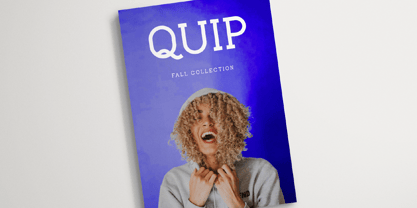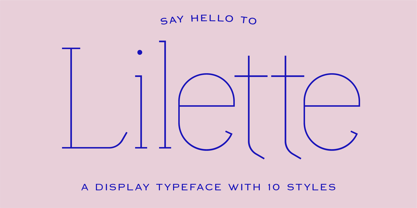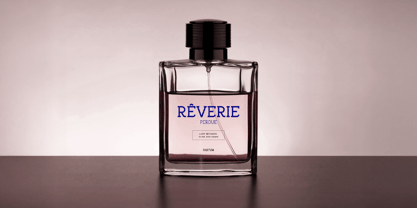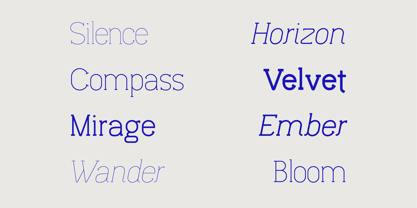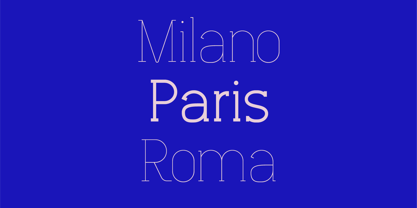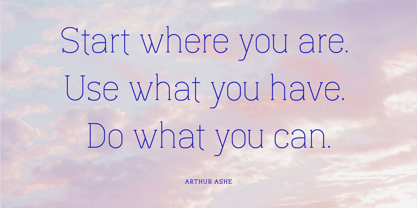
Lilette
by Elyas Beria
The Lilette Font Family was designed by Elyas Beria and published by Elyas Beria. Lilette contains 10 styles and family package options.
Lilette — A Refined Display Typeface of Poise and Precision Lilette is an elegant display typeface that marries geometric precision with delicate, expressive curves. Designed to capture a sense of modern refinement and understated confidence, Lilette offers ten distinct styles ranging from sleek light weights to expressive bolds — each crafted to bring sophistication and clarity to contemporary design. Design Concept Lilette was designed for brands and creatives seeking a balance between technical structure and human warmth. Its thin strokes, generous spacing, and graceful terminals evoke a quiet rhythm, while subtle quirks in its letterforms lend it personality and charm. The result is a typeface that feels equally at home in luxury branding, editorial design, art direction, and high-end digital interfaces. Every curve and line in Lilette was drawn to celebrate simplicity and contrast — the meeting of straight edges and soft loops, of modern restraint and timeless elegance. Features • 10 Styles: Ultra Light, Light, Regular, Medium, Bold, and corresponding Italics • Multilingual Support: Covers Latin Extended-A character set • Optimized for Display Use: Perfect for large titles, magazine covers, fashion branding, and high-impact editorial spreads • Refined Geometry: Balanced proportions with distinctive rhythm and contrast Personality & Use Lilette thrives in settings where visual grace and modernity meet — from luxury packaging and high-end identity systems to minimalistic digital layouts. Its airy structure and confident lines make it especially suitable for: • Brand identities • Editorial headlines • Posters and covers • Boutique websites • Fashion, art, and lifestyle projects